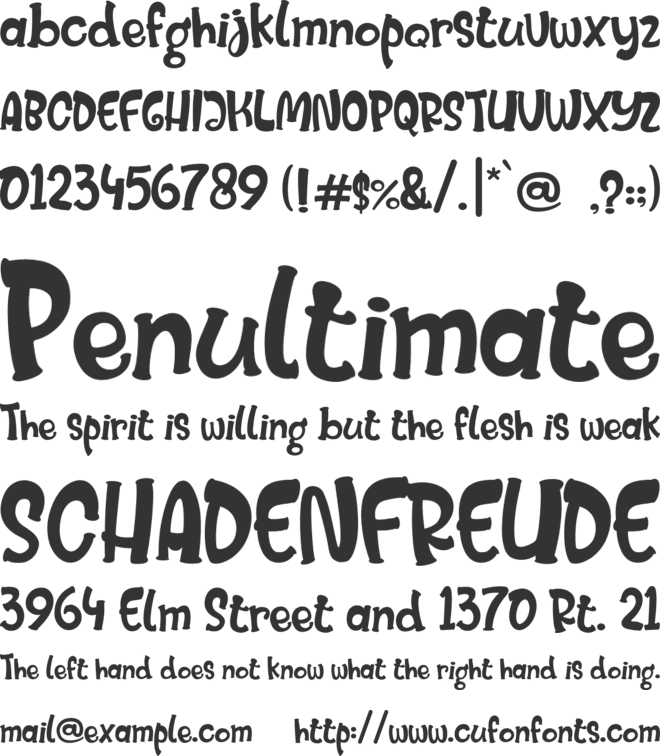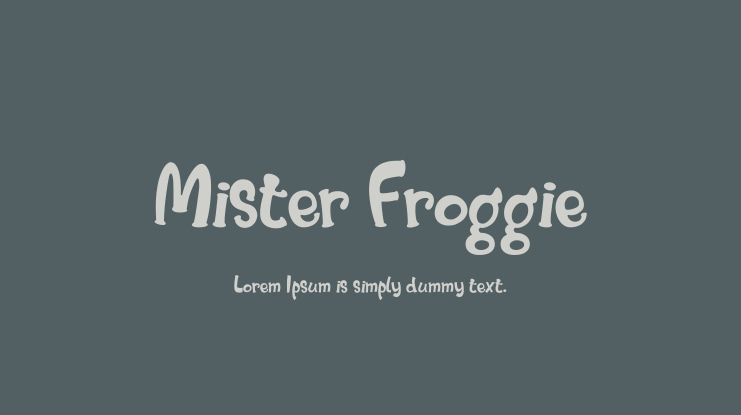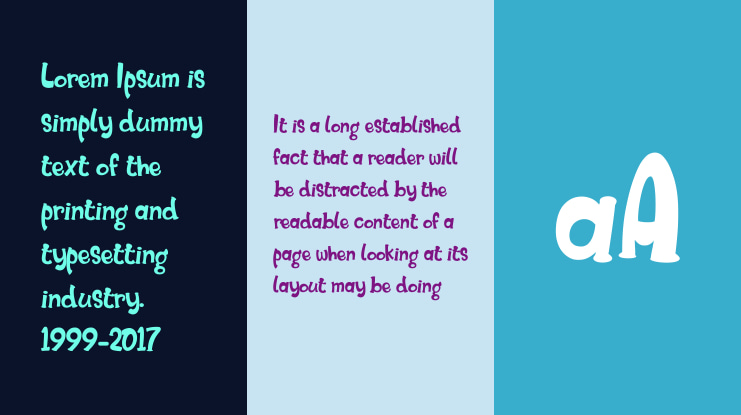
Mister Froggie Font
Hi Font Lovers ! i want to introduce Mister Froggie Playful font
Mister Froggie is a playful font with an extruded font. This font will be suitable for logo, branding projects, product packaging, quotes, book covers, greeting card, and all your other lovely projects. Mister Froggie comes with playful style and combined with extruded font, It contains a full set of lower & uppercase letters, a large range of punctuation, numerals, multilingual support and many cute alternates.
Features :
Stylistic Alternates
Character Set A-Z
Numerals & Punctuations (OpenType Standard)
Accents (Multilingual characters)
PUA Encoded